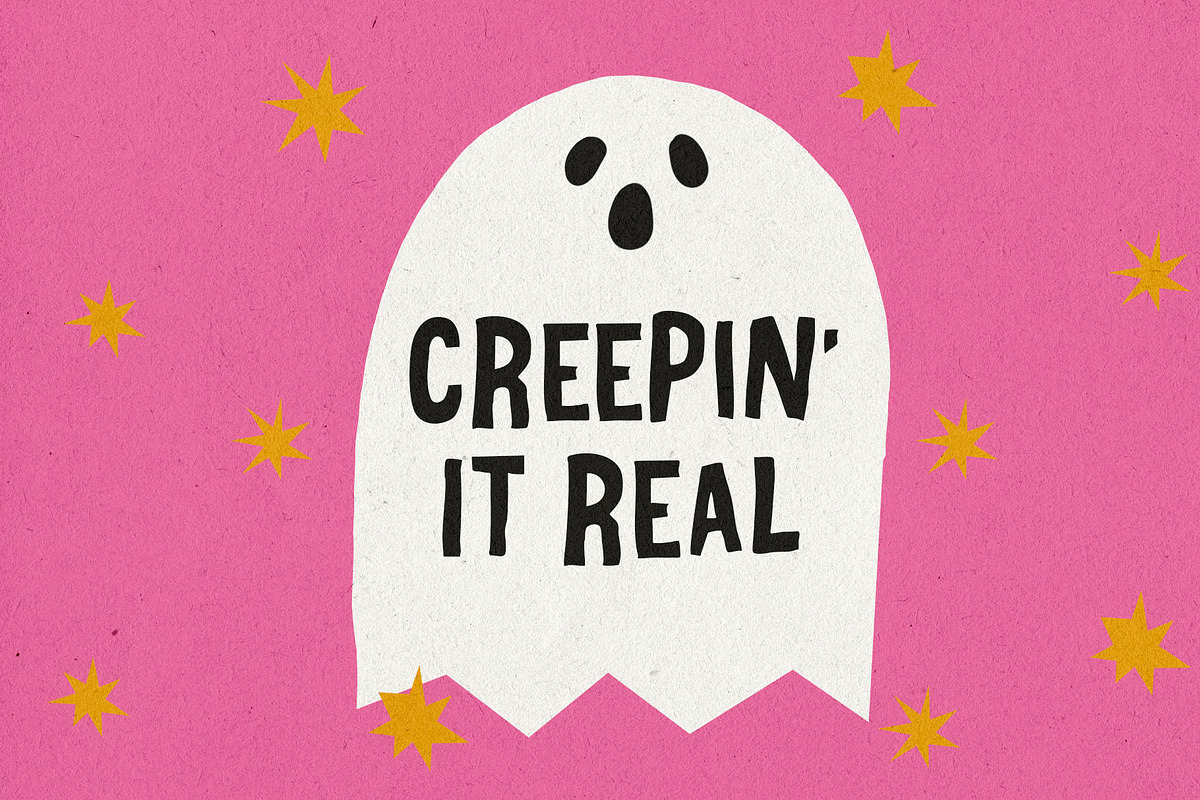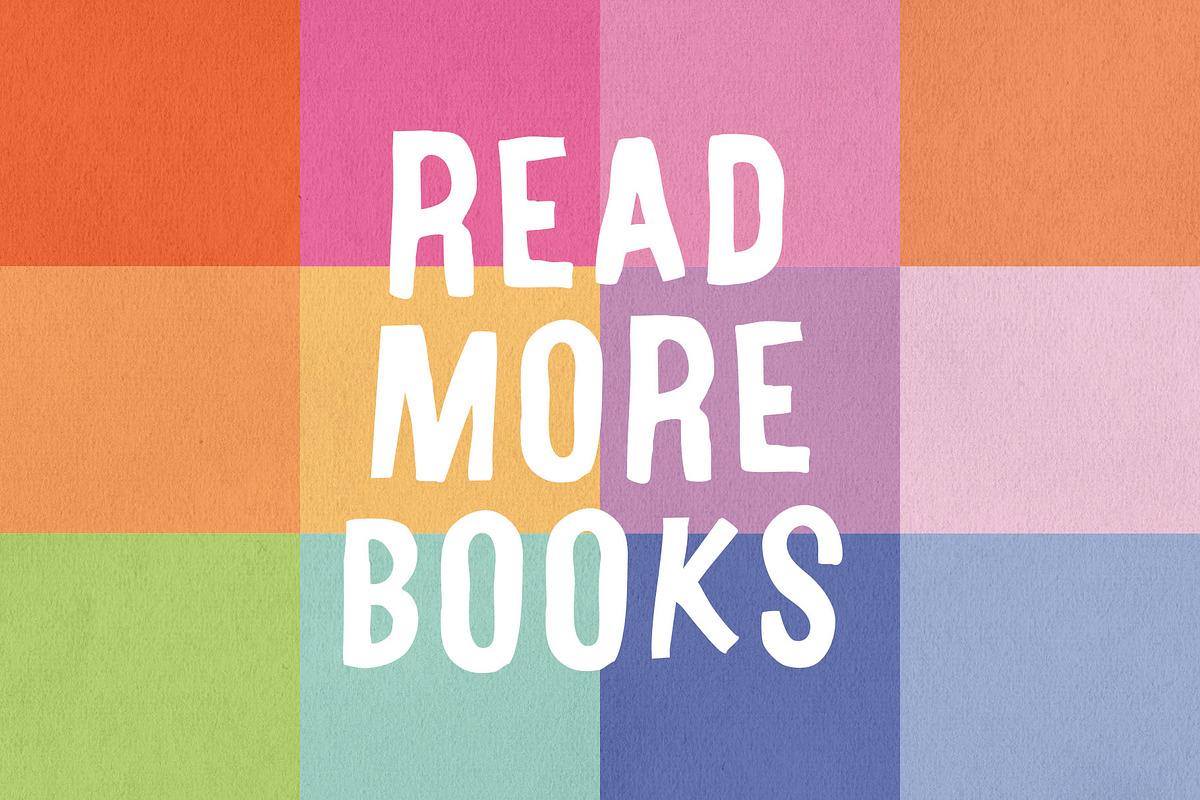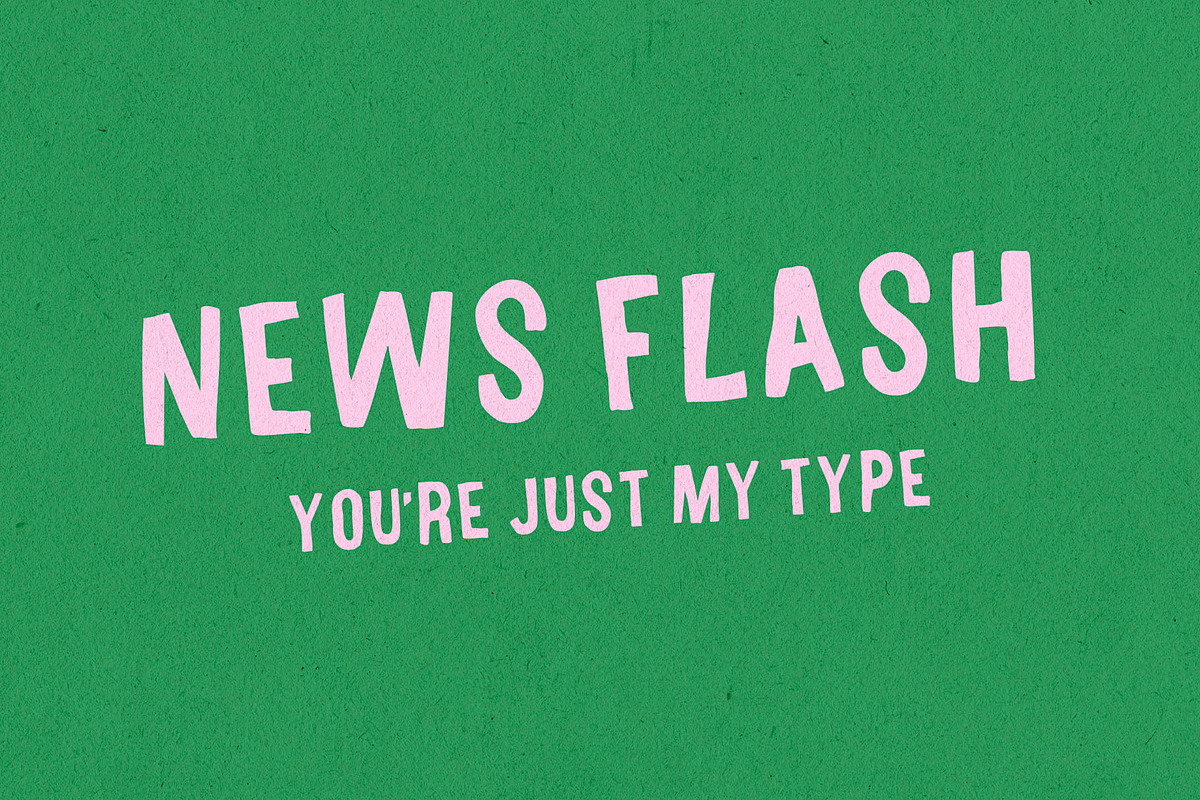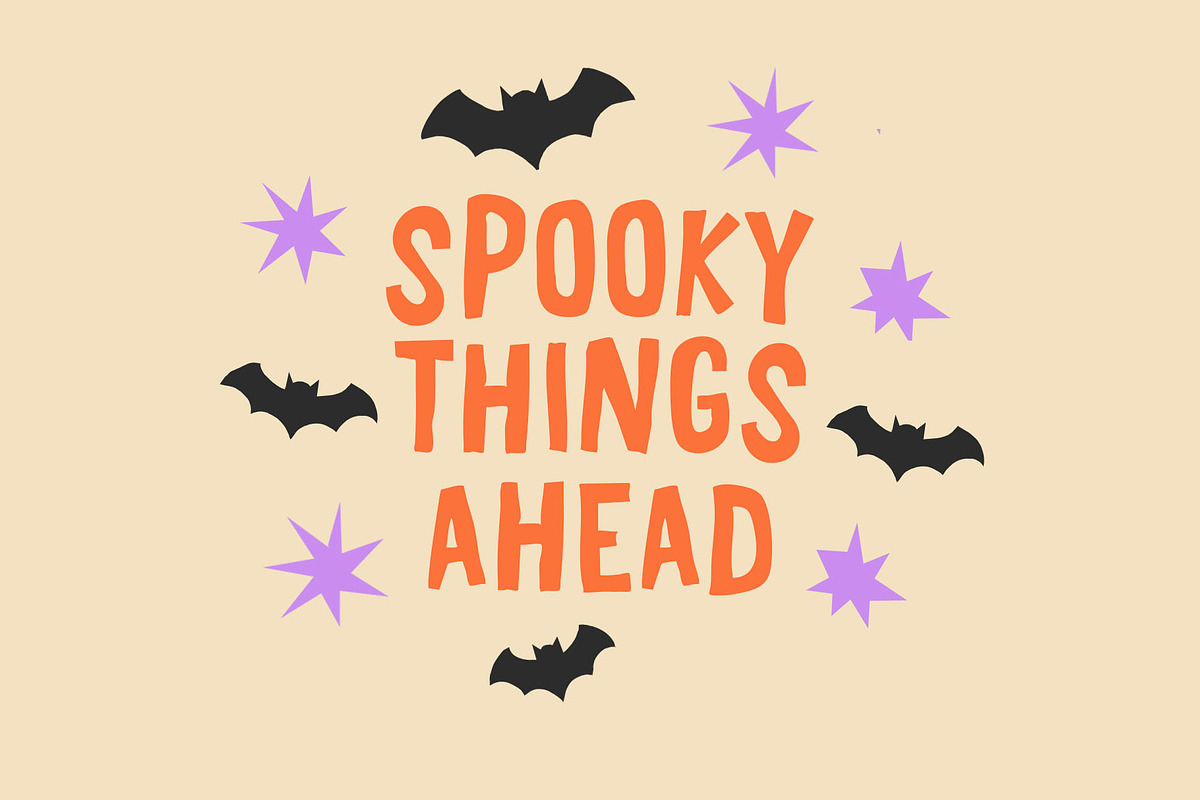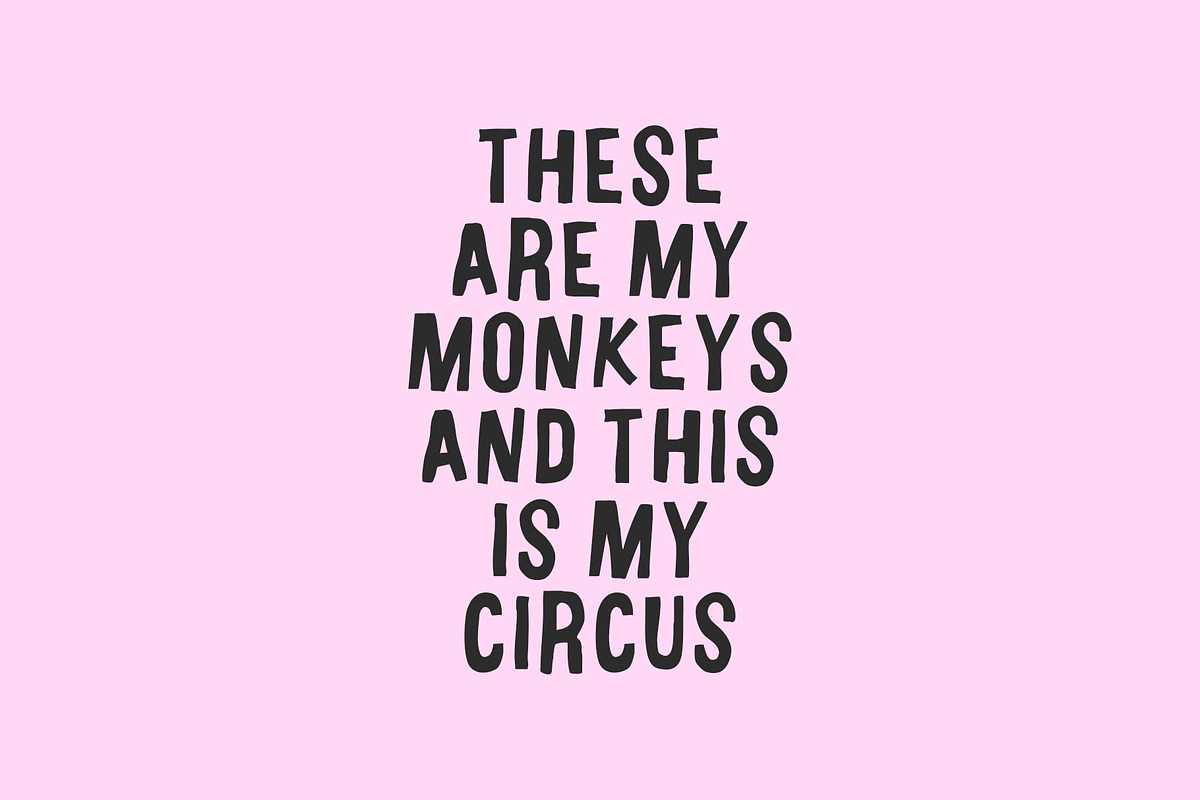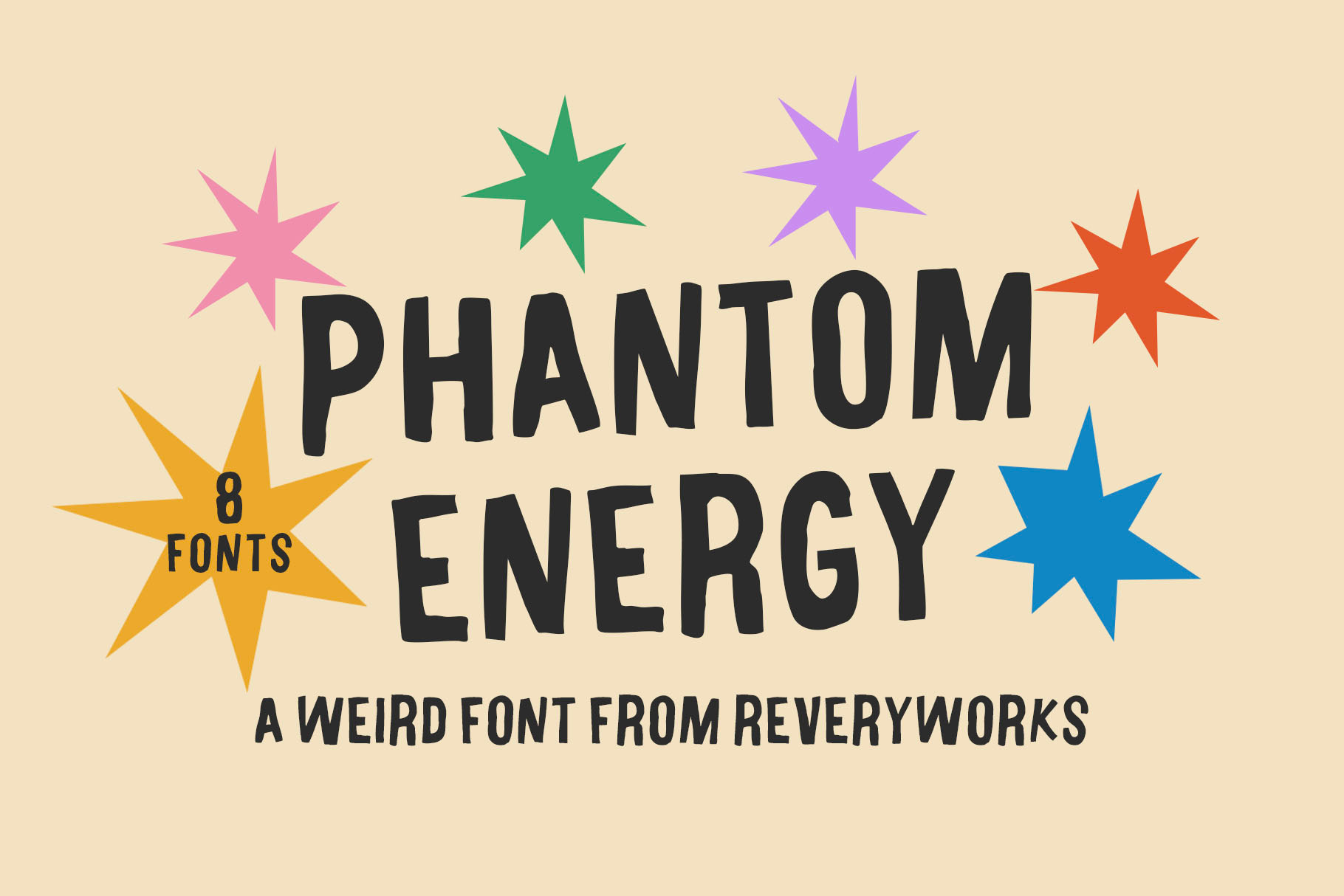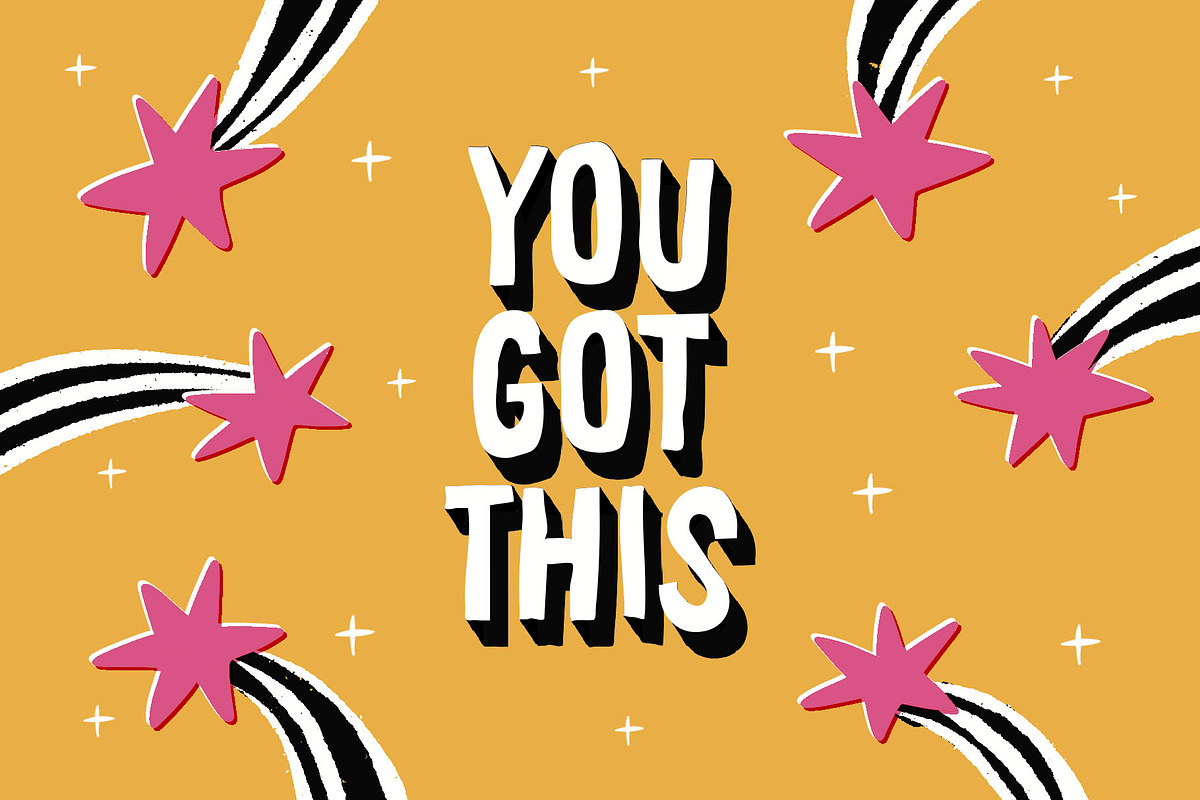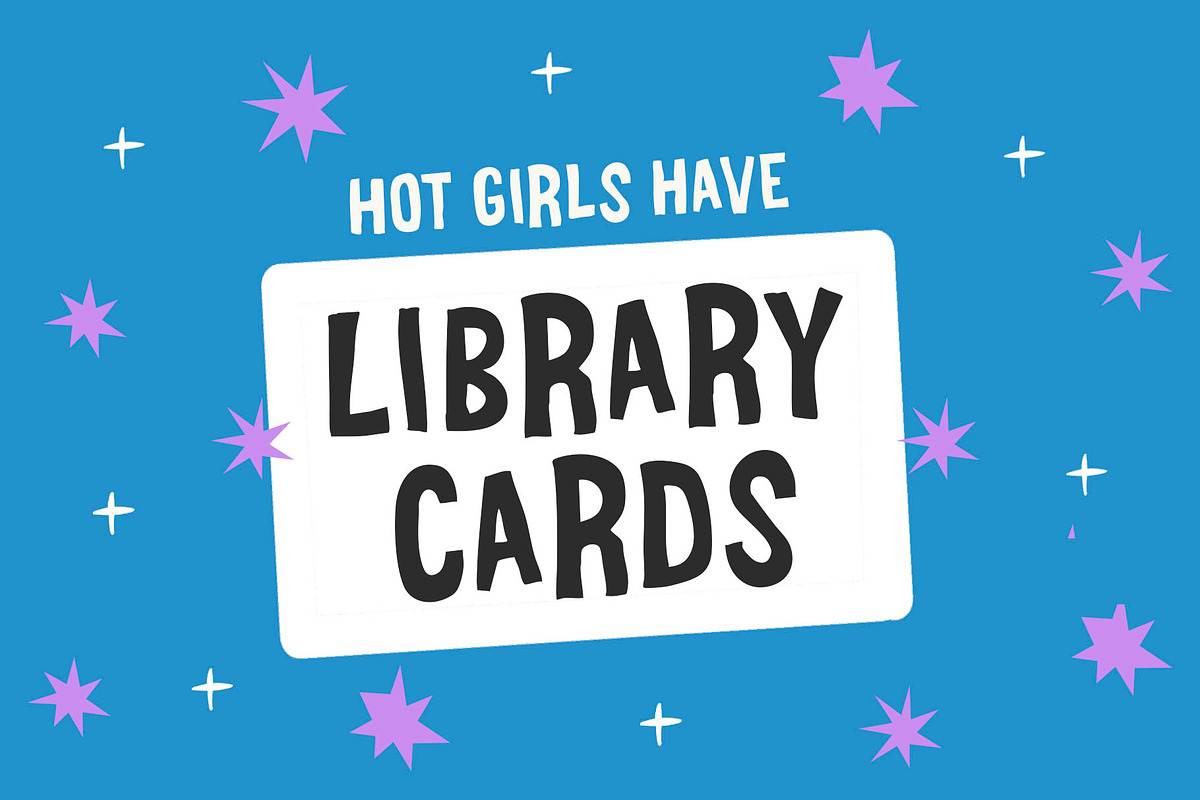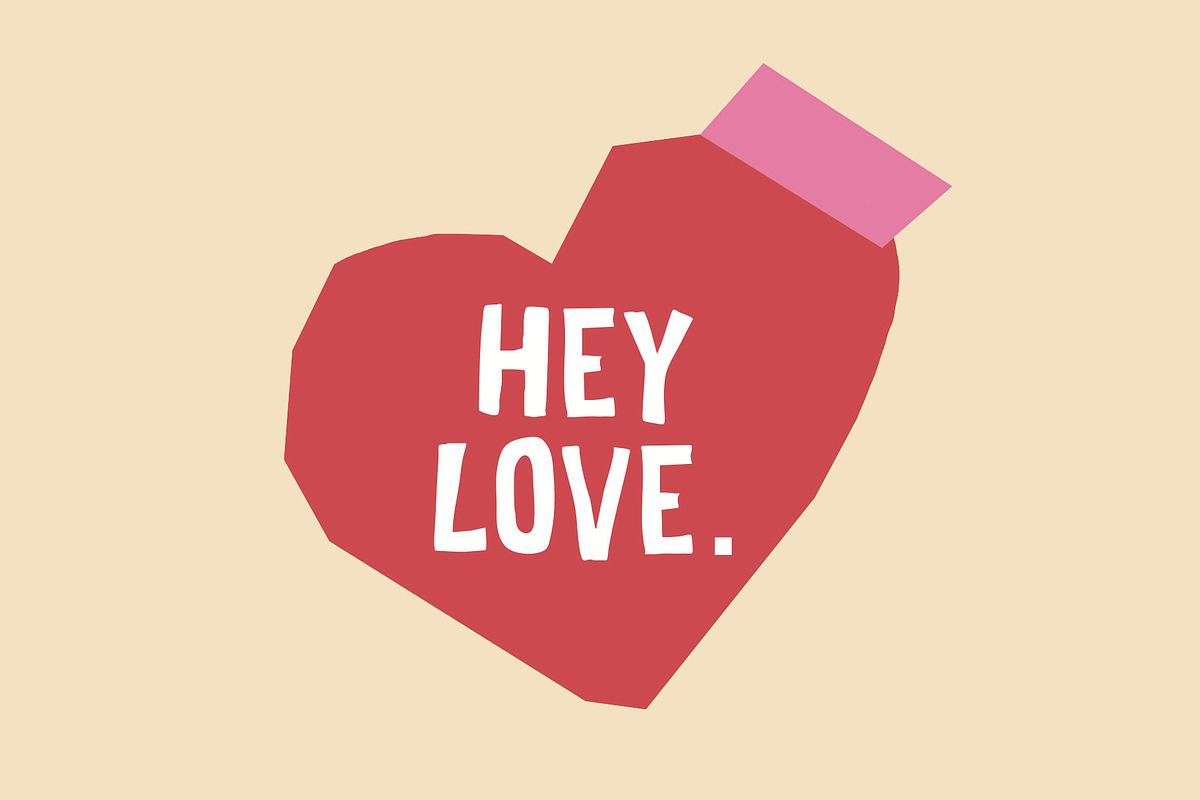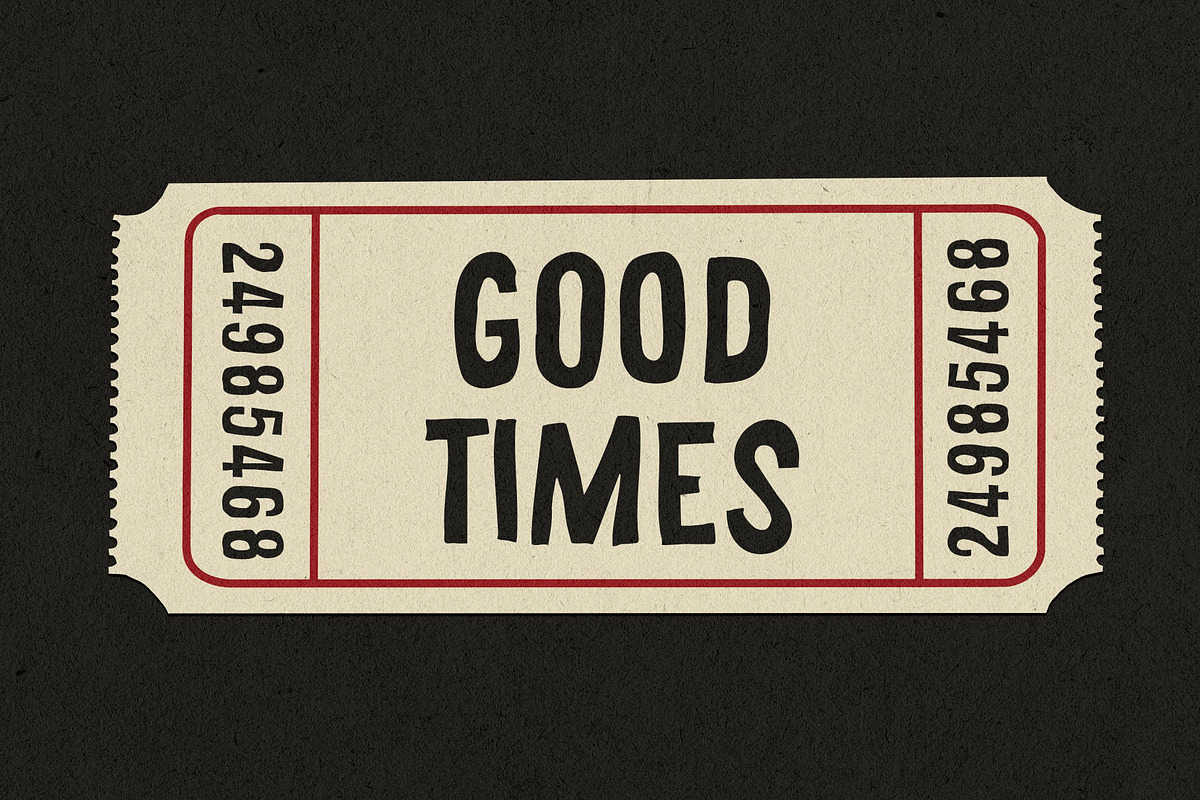
Phantom Energy Fonts
Introducing Phantom Energy!
A fun, weird and quirky font that is versatile however you use it in your projects. It works well for a playful designs and copes well with strange, spooky vibes!
Comes in 8 variations inspired by paper-cut fonts but make it special and a little wonky to add a bizarre twist :)